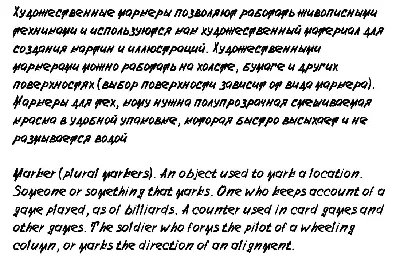
Handwritten-printed font from handwriting
Handwritten-printed font from handwriting.
- Author´s font from handwriting for writing abstracts, contracts, powers of attorney, reports, coursework, diplomas, etc. in Russian and English.
- Support English and Russian language.
- Pen type: felt-tip pen, marker